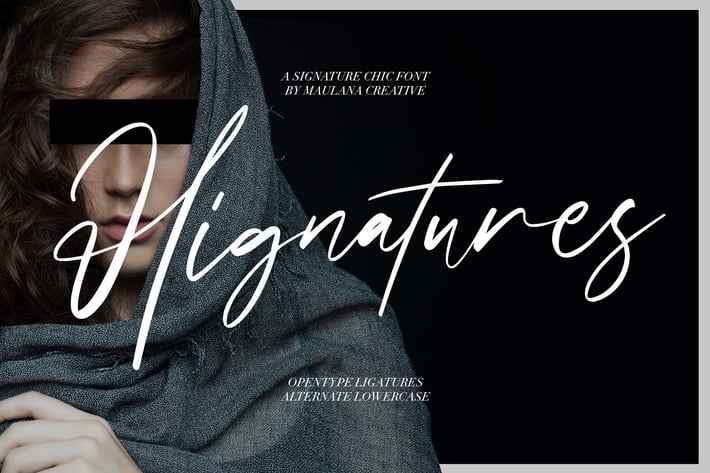
Hignatures Signature Brush Font
Give your designs an authentic handcrafted feel. "Hignatures" is perfectly suited to signature, stationery, logo, typography quotes, magazine or book cover, website header, clothing, branding, packaging design and more.